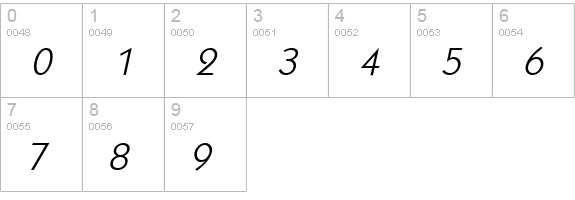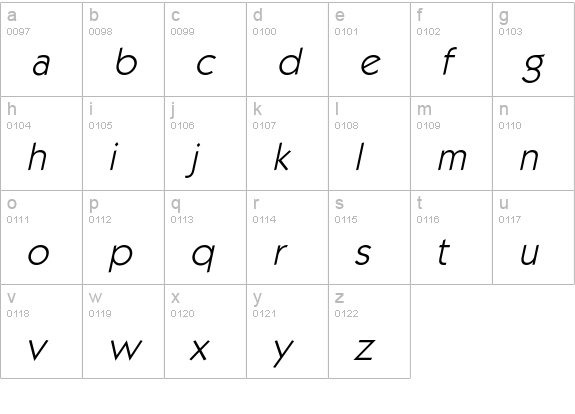
KabobLight Italic Font Details
KabobLight Italic is a distinctive, italic variant in the KabobLight typeface family \xE2\x80\x94 well suited to design and typography projects.
Introducing KabobLight Italic, a stunning and versatile font that effortlessly captures the essence of elegance and sophistication. With its unique and delicate slant, this font adds a touch of modernity and refinement to any design project. Crafted with meticulous attention to detail, KabobLight Italic features slender and graceful letterforms that flow seamlessly across the page. Its exquisite curves and subtle variations in line thickness give it a graceful and captivating presence. Whether used for headlines, body text, or logos, this font demands attention and creates a lasting impression. What sets KabobLight Italic apart is not just its aesthetic appeal, but also its accessibility. This font is available to you completely free of charge, ensuring that anyone can elevate their designs without breaking the bank. Simply head over to FontsMarket.com, where you can effortlessly download KabobLight Italic and start incorporating its timeless beauty into your creative endeavors. Ideal for a wide range of design projects, KabobLight Italic exudes an air of sophistication that effortlessly enhances various styles and themes. Whether you're working on a wedding invitation, a magazine layout, a branding project, or a website design, this font will bring a touch of elegance and refinement to your work. So why hesitate? Embrace the beauty and versatility of KabobLight Italic today. Download it freely at FontsMarket.com and let your creativity soar to new heights.